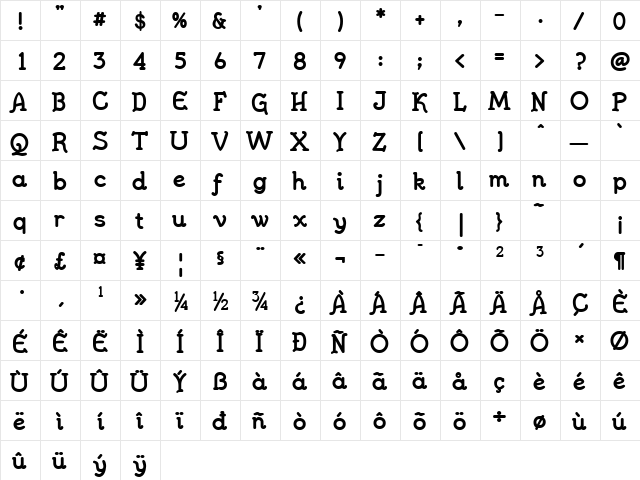
JennerikInfmlXBold Regular
Design Context for JennerikInfmlXBold Typeface
JennerikInfmlXBold offers clean, dependable letterforms without strong stylistic allegiance, making it a practical choice for designers who need flexibility. The heavy weight commands attention and anchors typographic hierarchies.